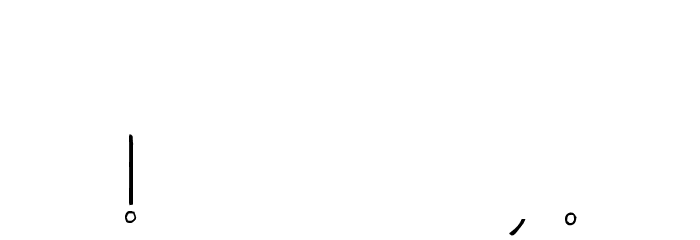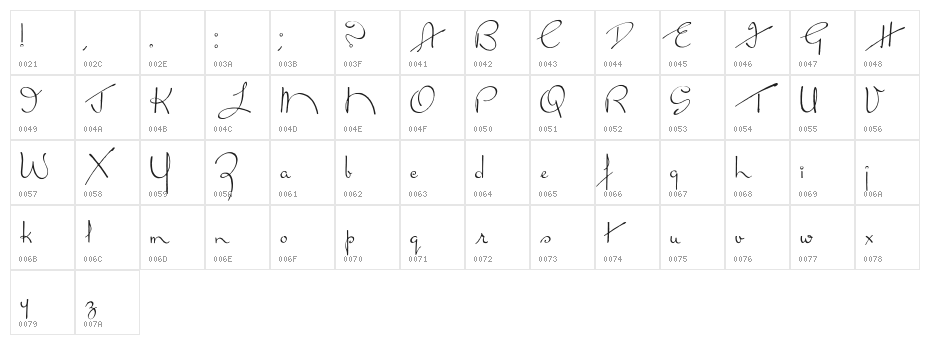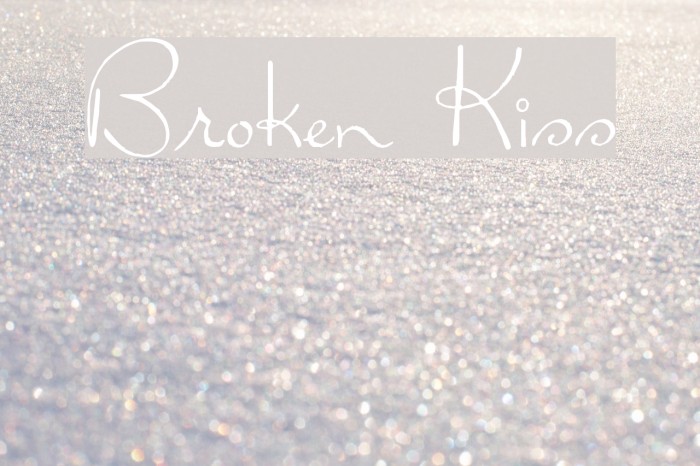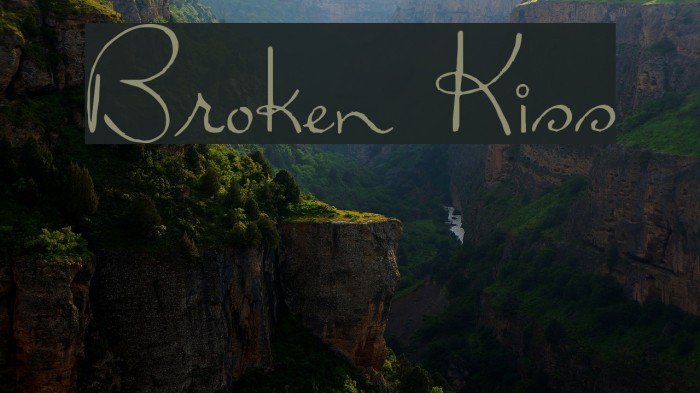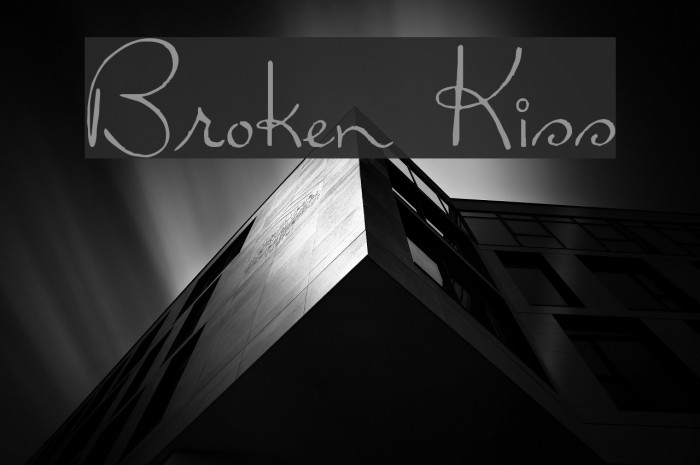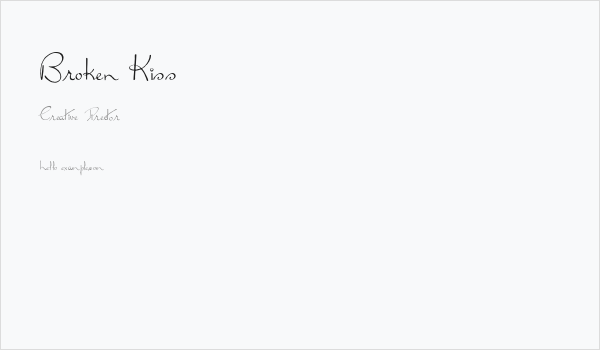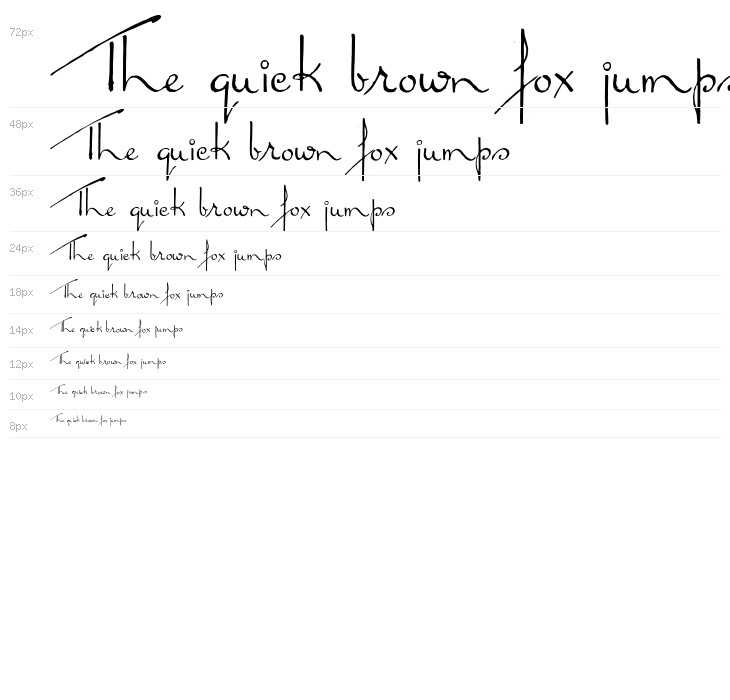
Broken Kiss Font
Broken Kiss Description
This font features an elegant and artistic script style, characterized by its flowing and interconnected letterforms. The uppercase letters exhibit a graceful, sweeping motion with elongated strokes that give a sense of movement and fluidity. The lowercase letters maintain a consistent style, with some unique variations that add personality and charm. The overall design is delicate, with thin lines and a hand-drawn appearance, making it suitable for creative and expressive projects. The special characters are thoughtfully integrated, maintaining the font's cohesive aesthetic. This font is ideal for projects that require a touch of sophistication and artistic flair.
| Proposed Projects | Ideal for wedding invitations, greeting cards, artistic branding, and creative design projects. |